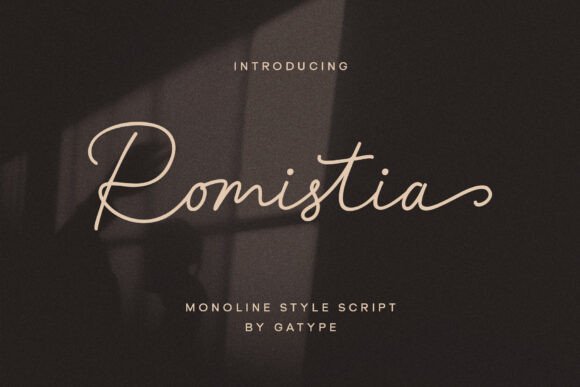
Introducing Romistia Font: The Elegant Monoline Script for Creative Projects
Are you looking for a font that exudes elegance, sophistication, and a touch of femininity? Look no further than Romistia Font, a stunning monoline script style font that is perfect for creative projects. With its neat strokes, luxurious impression, and attention to detail, Romistia Font is ideal for designs that require a touch of romance and glamour.
What is Romistia Font?
Romistia Font is a monoline script style font that boasts an elegant and artistic appearance. Its design is reminiscent of fine handwriting, with each letter carefully crafted to convey a sense of luxury and refinement. The font’s neat strokes and smooth lines create a cohesive and sophisticated look that is sure to impress.
One of the standout features of Romistia Font is its attention to detail. Each letter is designed with a touch of femininity and grace, making it perfect for designs that require a subtle yet elegant touch. Whether you’re working on a wedding invitation, logo, or packaging design, Romistia Font is sure to add a touch of sophistication and glamour.
The Characteristics of Romistia Font
So, what makes Romistia Font so special? Here are just a few of its key characteristics:
- Elegant and Artistic Appearance: Romistia Font boasts an elegant and artistic appearance that is sure to impress. Its monoline script style design creates a sophisticated and refined look that is perfect for creative projects.
- Neat Strokes and Luxurious Impression: The font’s neat strokes and smooth lines create a luxurious impression that is sure to add a touch of glamour to your designs.
- Feminine and Graceful Impression: Each letter is designed with a touch of femininity and grace, making Romistia Font perfect for designs that require a subtle yet elegant touch.
- Attention to Detail: The font’s attention to detail is second to none, with each letter carefully crafted to create a cohesive and sophisticated look.
Uses for Romistia Font
So, what can you use Romistia Font for? The possibilities are endless, but here are a few ideas to get you started:
- Wedding Invitations: Romistia Font is perfect for wedding invitations, with its elegant and sophisticated design creating a romantic and memorable impression.
- Logos: The font’s luxurious impression and attention to detail make it ideal for logos that require a touch of sophistication and glamour.
- Premium Product Packaging: Romistia Font is perfect for premium product packaging, with its elegant and refined design creating a cohesive and sophisticated look.
- Romantic-Themed Designs: Whether you’re working on a Valentine’s Day design or a romantic-themed project, Romistia Font is sure to add a touch of elegance and sophistication.
Why Choose Romistia Font?
So, why choose Romistia Font for your creative projects? Here are just a few reasons:
- Unique and Elegant Design: Romistia Font boasts a unique and elegant design that is sure to impress. Its monoline script style design creates a sophisticated and refined look that is perfect for creative projects.
- Attention to Detail: The font’s attention to detail is second to none, with each letter carefully crafted to create a cohesive and sophisticated look.
- Feminine and Graceful Impression: Romistia Font is perfect for designs that require a subtle yet elegant touch, with each letter designed with a touch of femininity and grace.
- Versatile: The font is versatile and can be used for a wide range of creative projects, from wedding invitations to logos and packaging design.
Tips for Using Romistia Font
Here are a few tips for using Romistia Font in your creative projects:
- Use it Sparingly: Romistia Font is a elegant and sophisticated font, so use it sparingly to avoid overwhelming your design.
- Pair it with Other Fonts: The font pairs well with other fonts, so don’t be afraid to experiment with different combinations.
- Use it for Headings: Romistia Font is perfect for headings and titles, so use it to add a touch of elegance and sophistication to your design.
- Experiment with Different Colors: The font looks great in a variety of colors, so experiment with different options to find the one that works best for your design.
In conclusion, Romistia Font is a stunning monoline script style font that is perfect for creative projects. With its elegant and artistic appearance, neat strokes, and luxurious impression, Romistia Font is sure to add a touch of sophistication and glamour to your designs. Whether you’re working on a wedding invitation, logo, or packaging design, Romistia Font is a great choice.